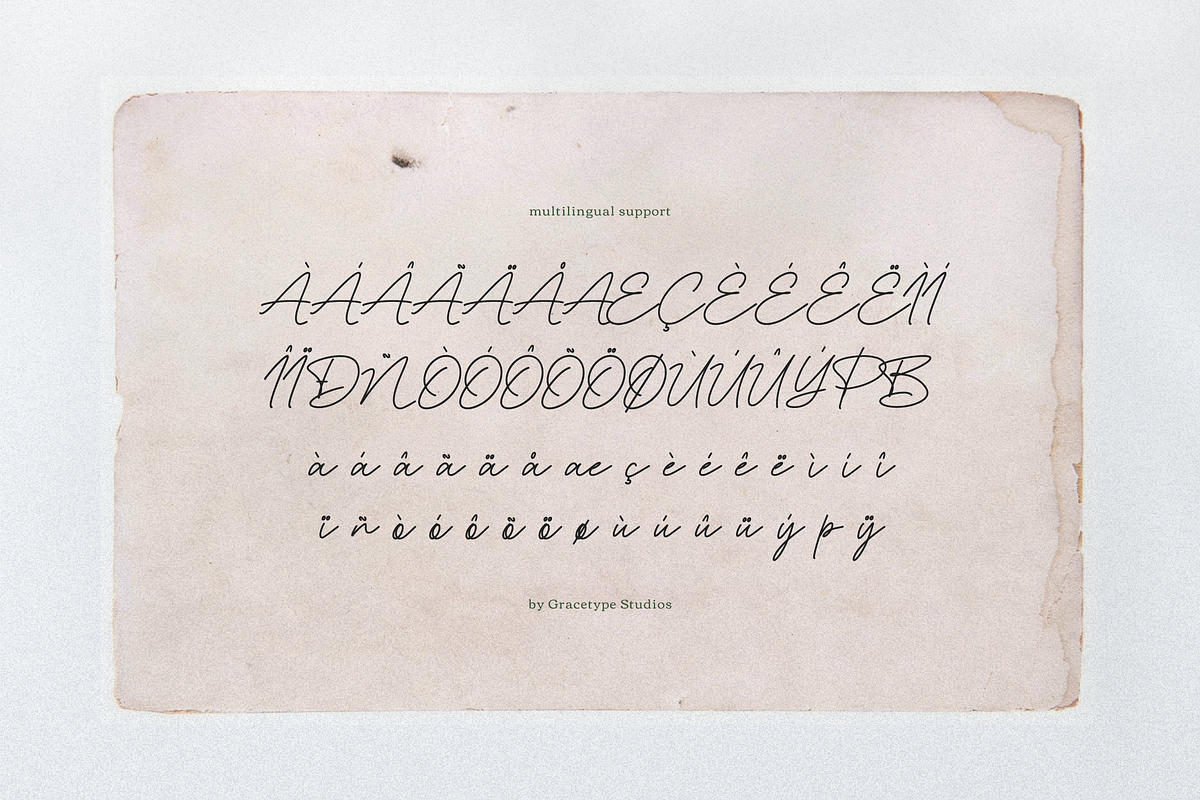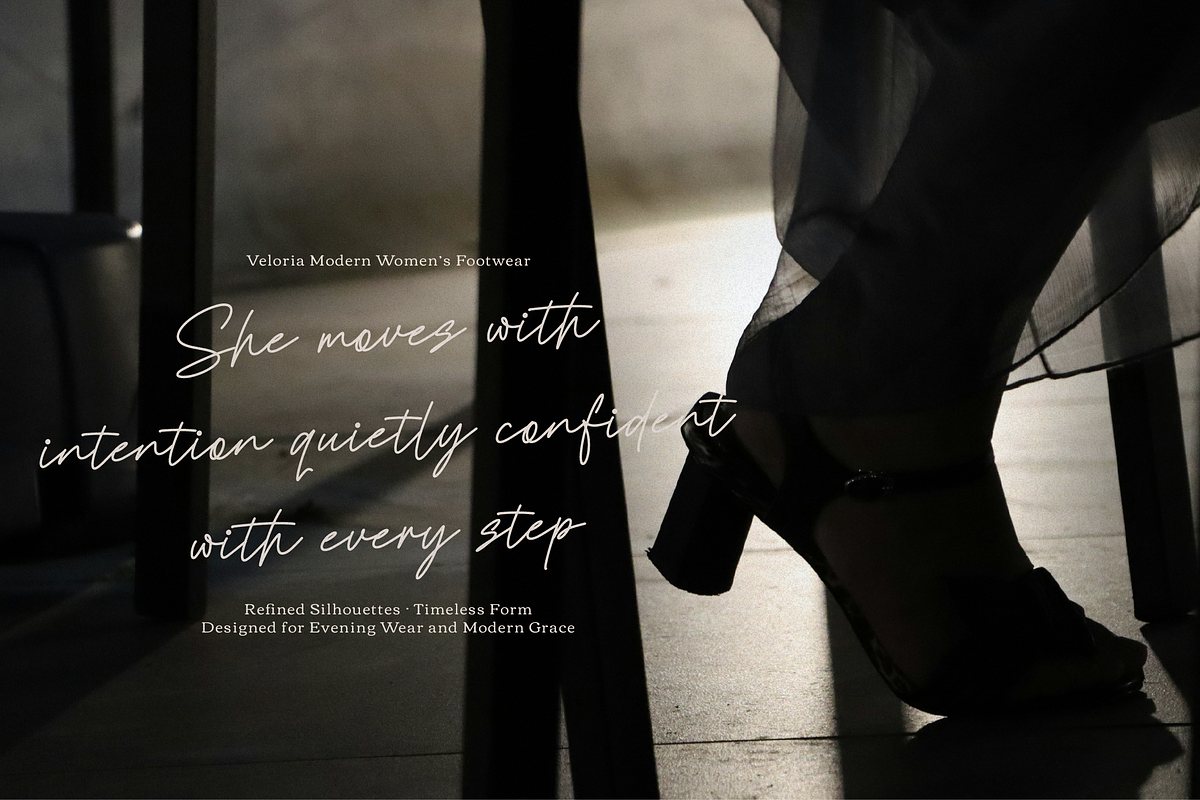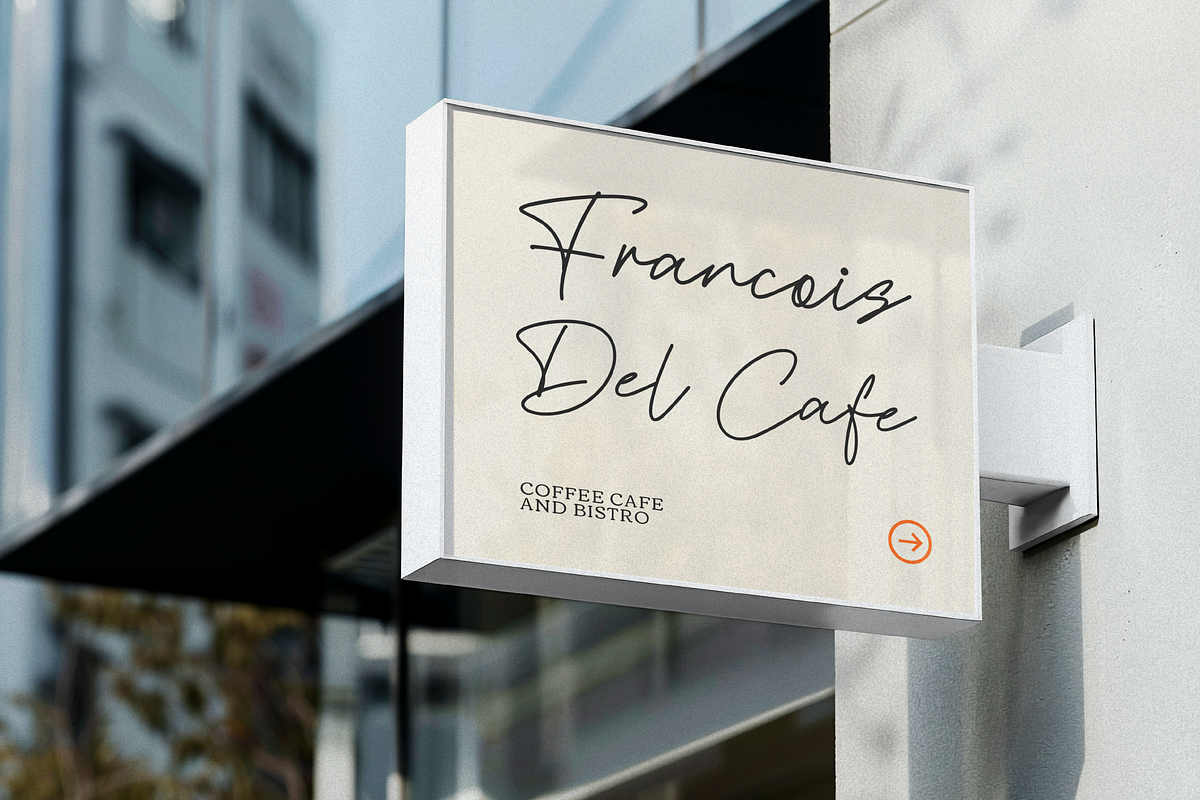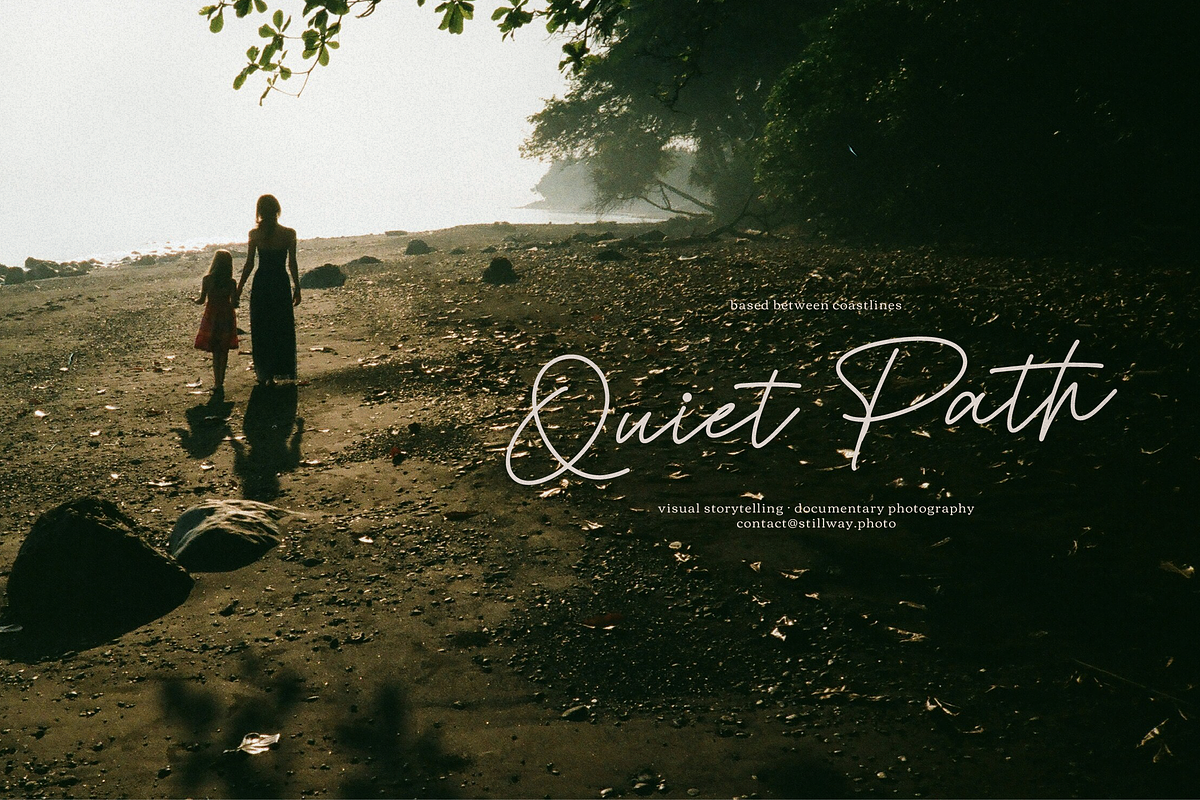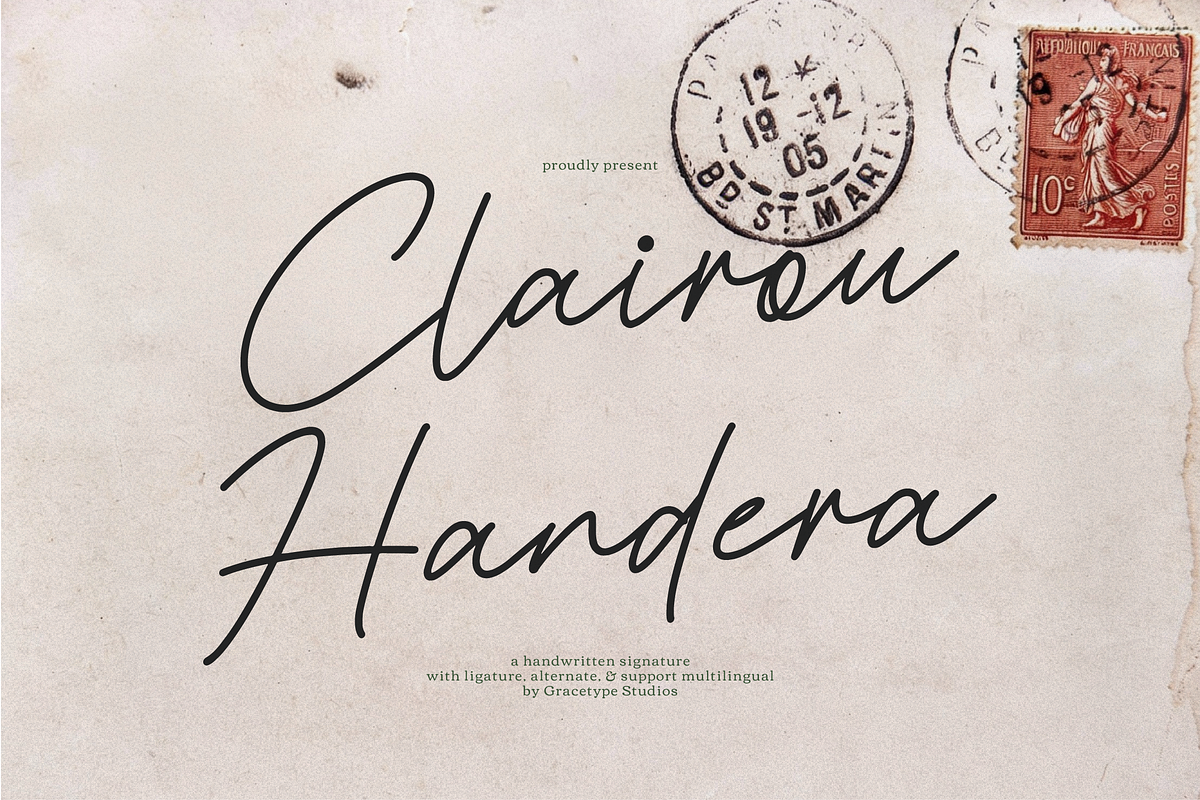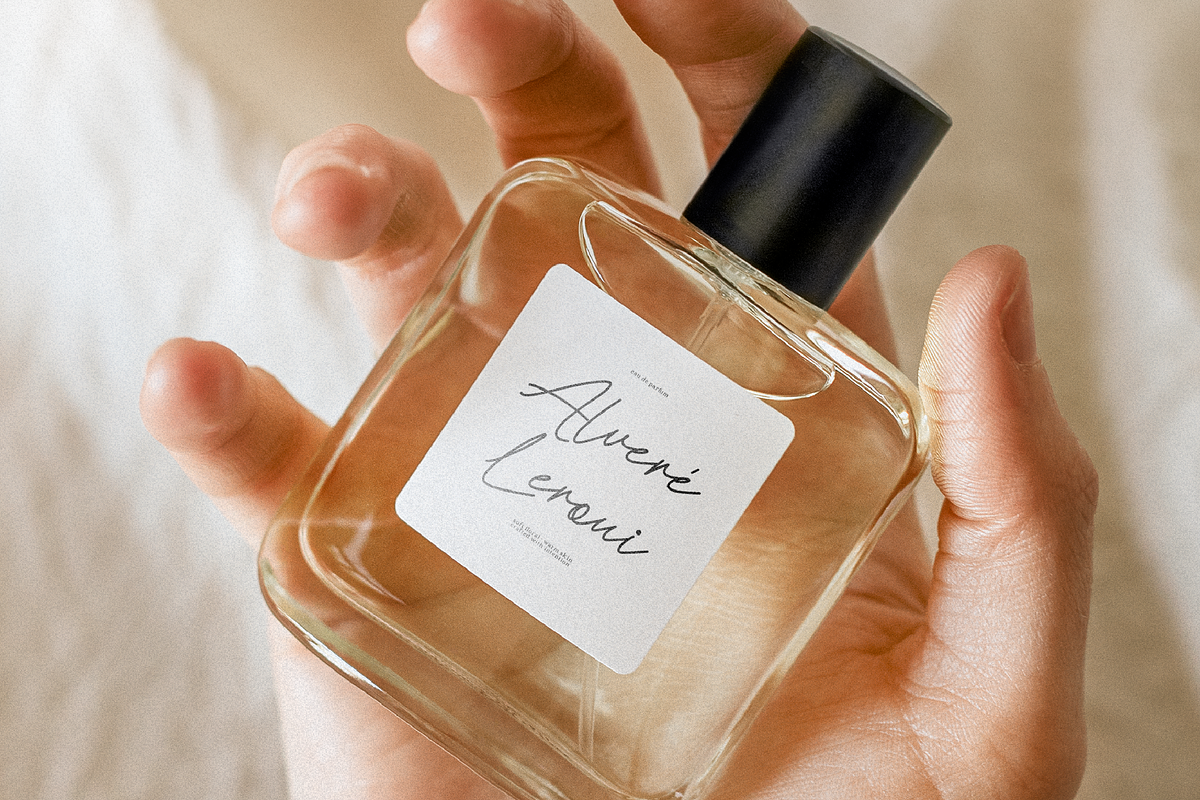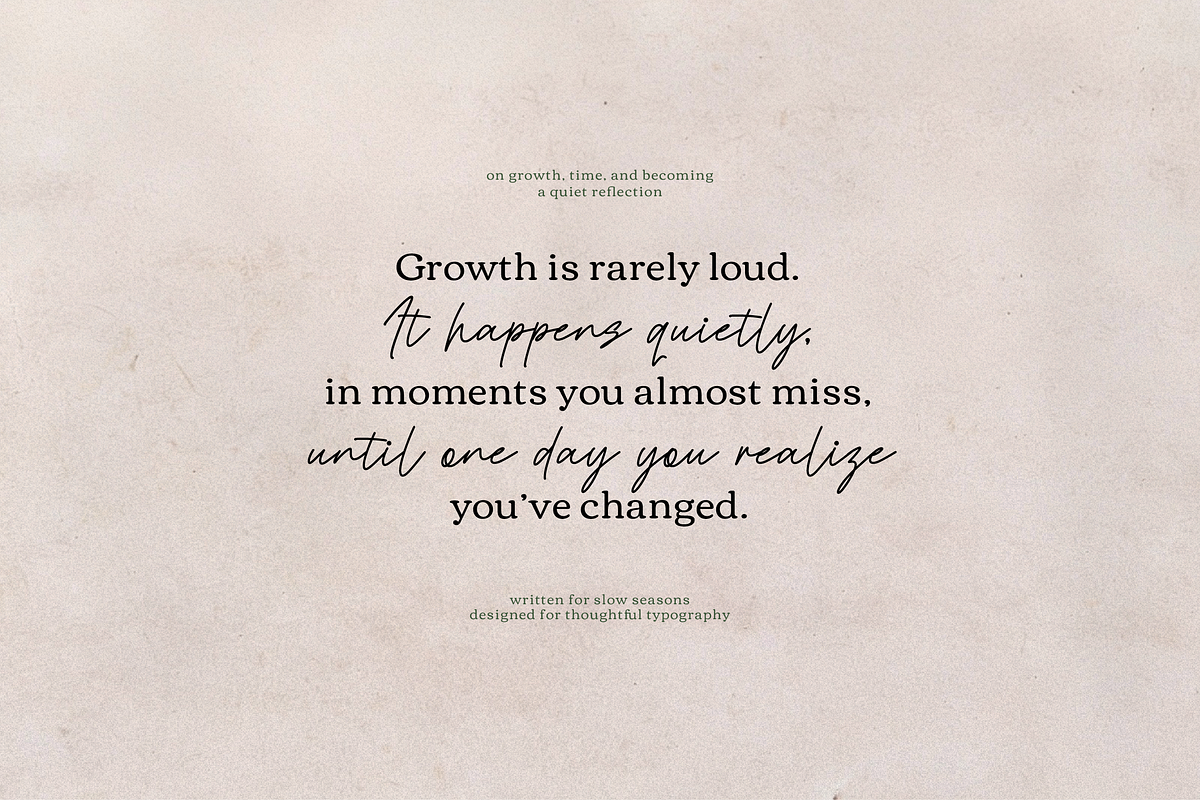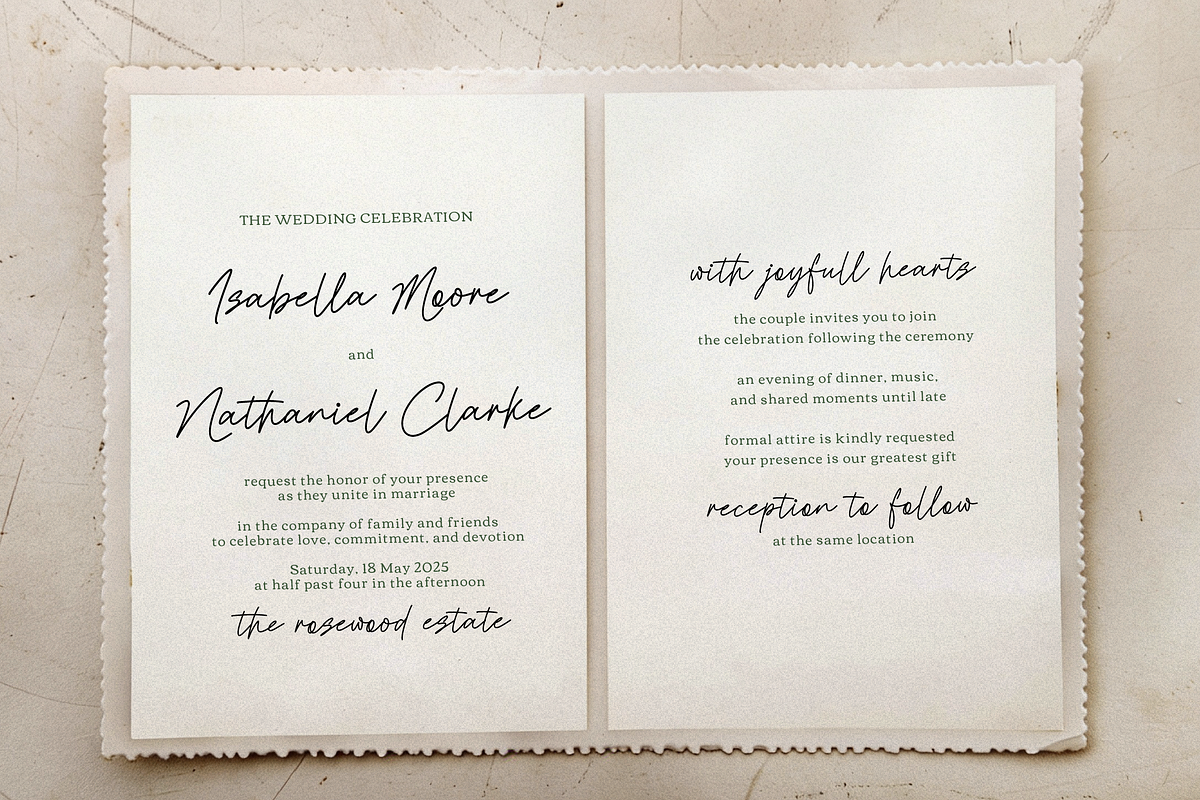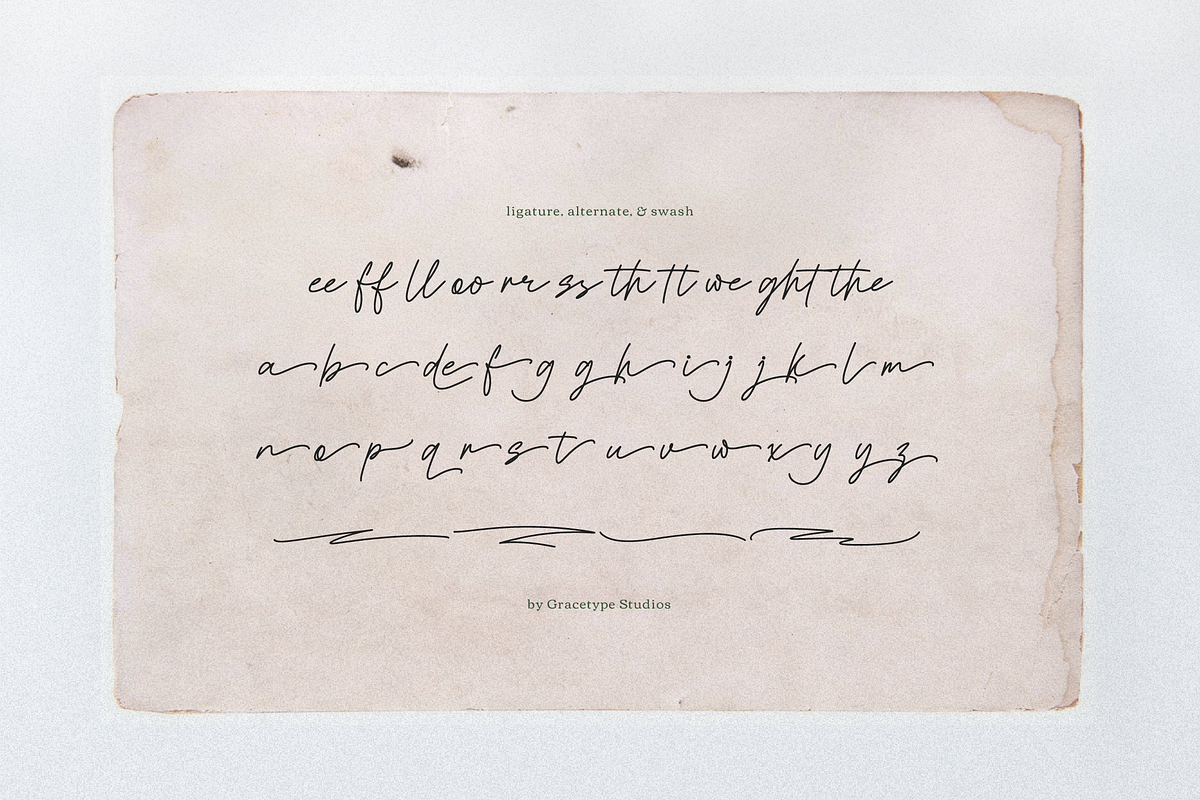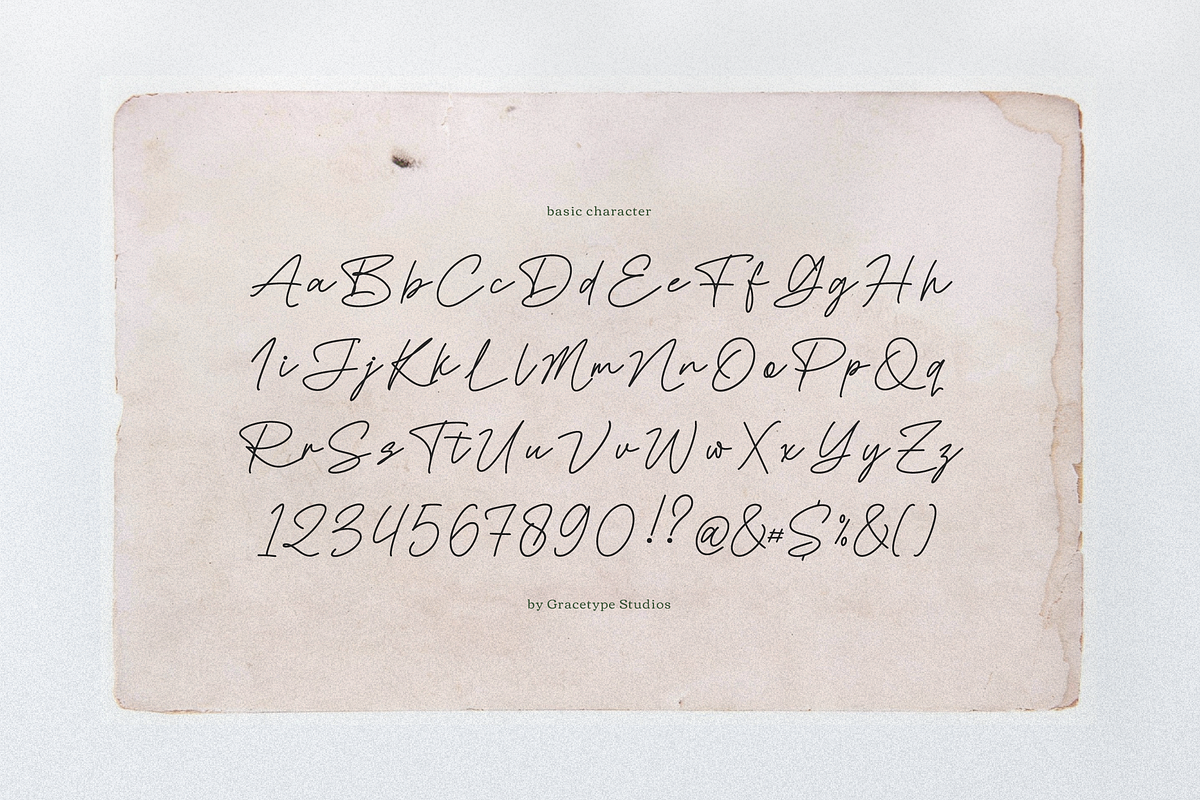
Clairou Handera | Handwritten Script
Clairou Handera | Handwritten Script, from Gracetypestudio, suitable for any projects such as: logos, branding projects, homeware designs, product packaging, mugs, quotes, posters, shopping bags, t-shirts, book covers, name card, invitation cards, greeting cards, label, photography, watermark, special events, and all your other lovely projects that need a Script taste.